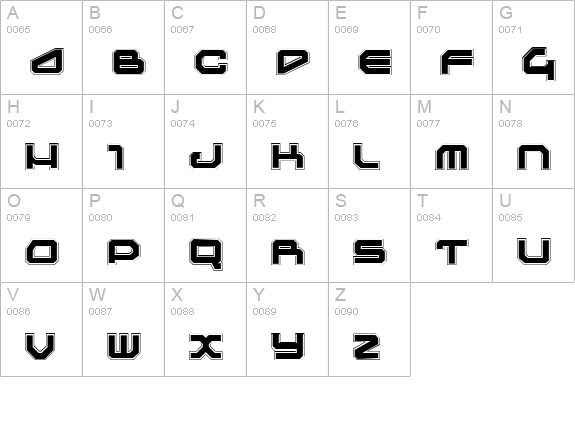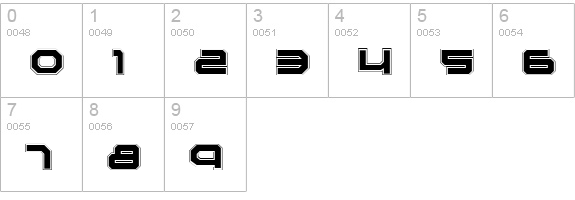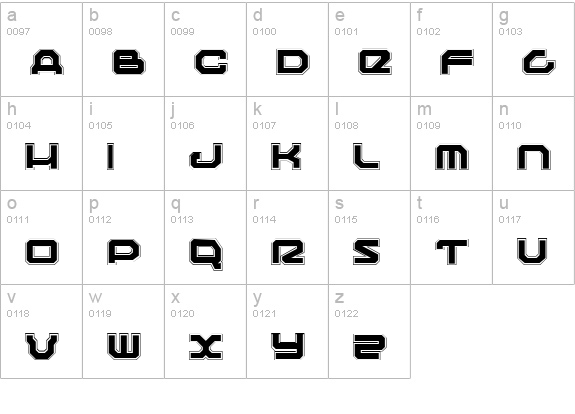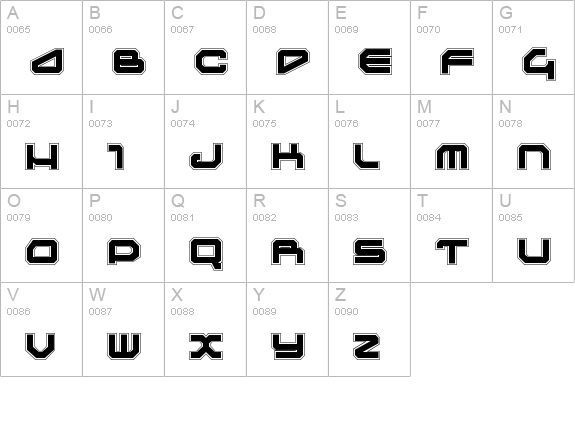
Traveler Pro font is a modern and stylish typeface that is perfect for all your design projects. With its sleek lines and elegant curves, this font exudes sophistication and professionalism. Whether you're creating a logo, website, or print materials, Traveler Pro will add a touch of class to your designs. The best part? Traveler Pro font is completely free to download at FontsMarket.com. You can easily access this high-quality font and elevate your projects without having to spend a dime. Don't miss out on the opportunity to enhance your designs with the timeless beauty of Traveler Pro font. Download it now and start creating stunning visuals today!